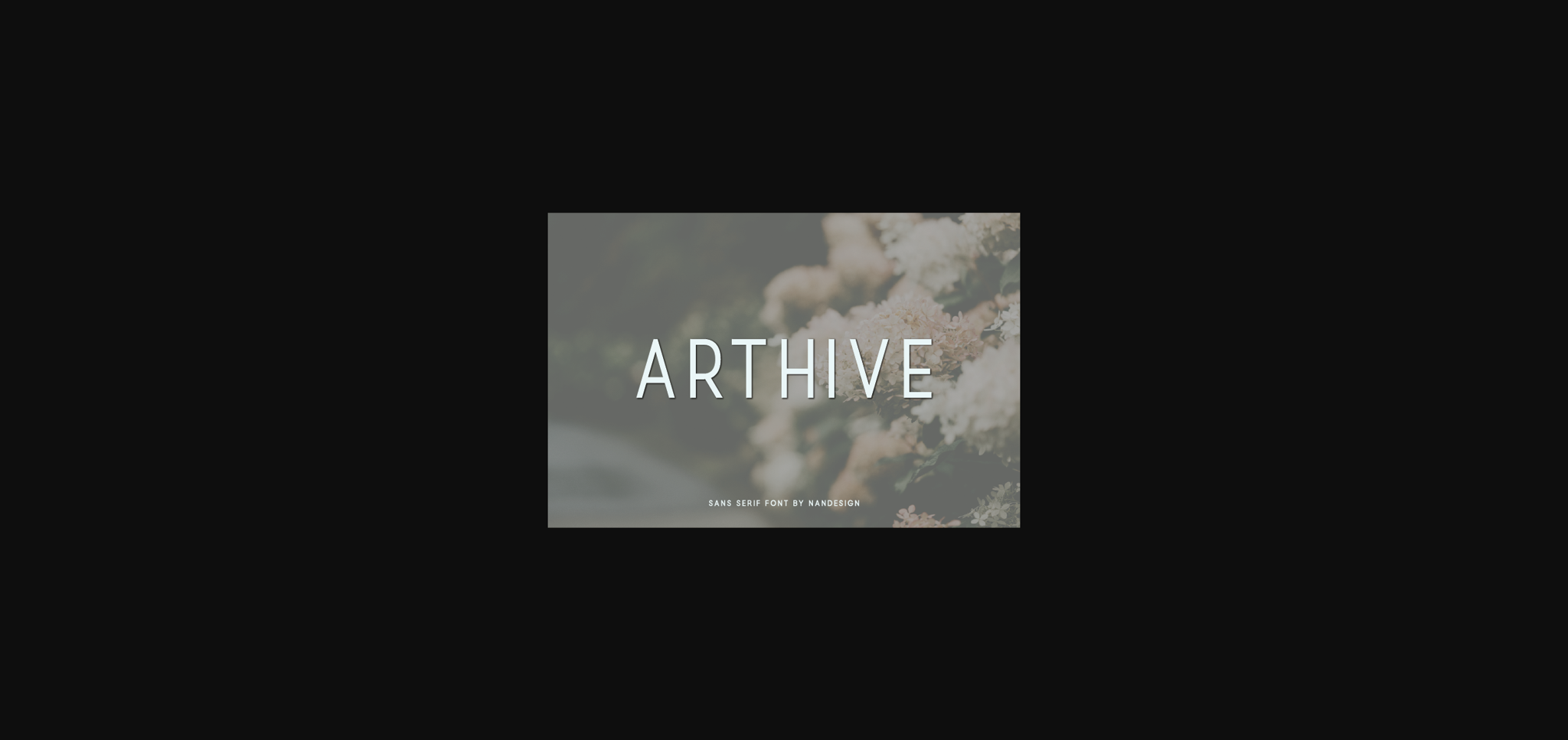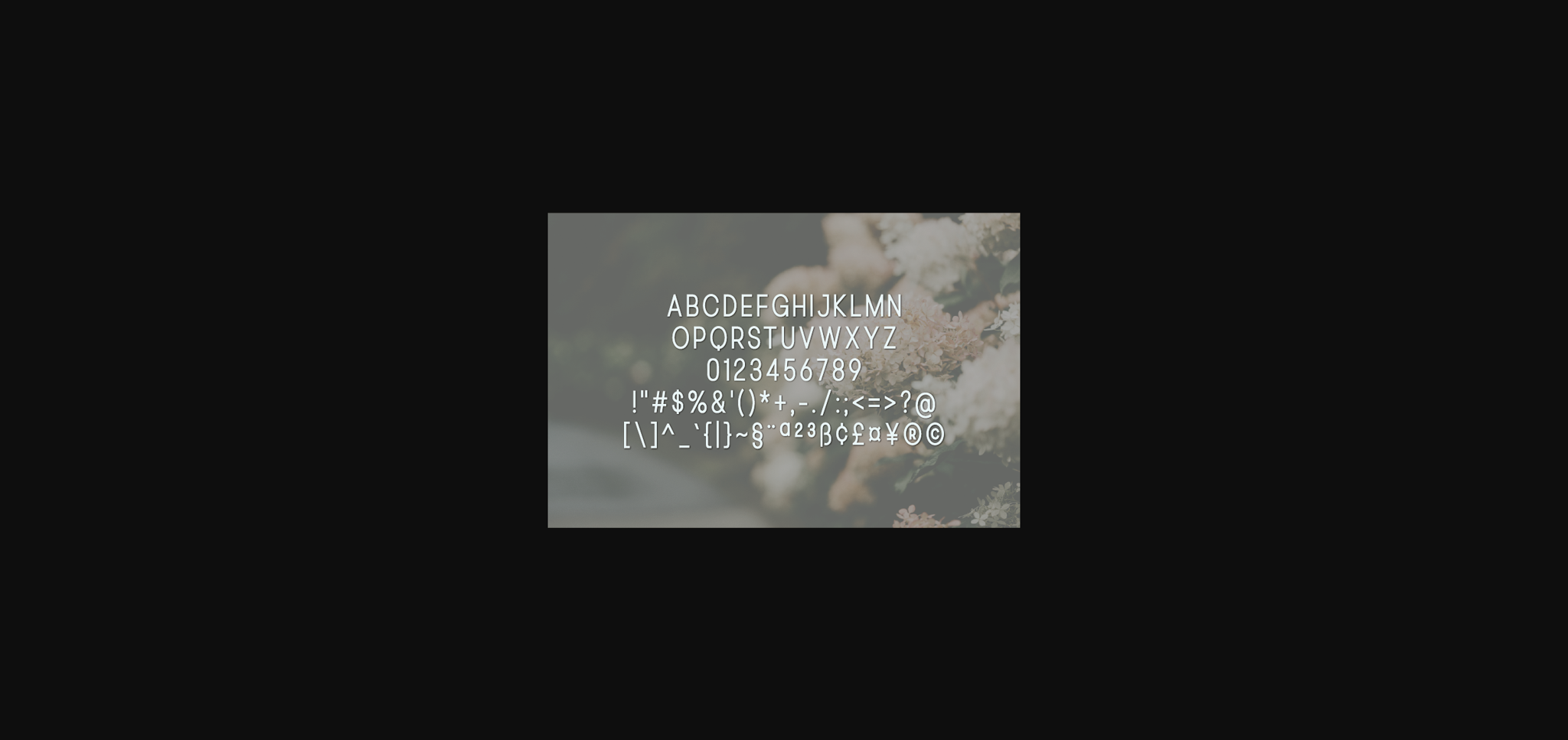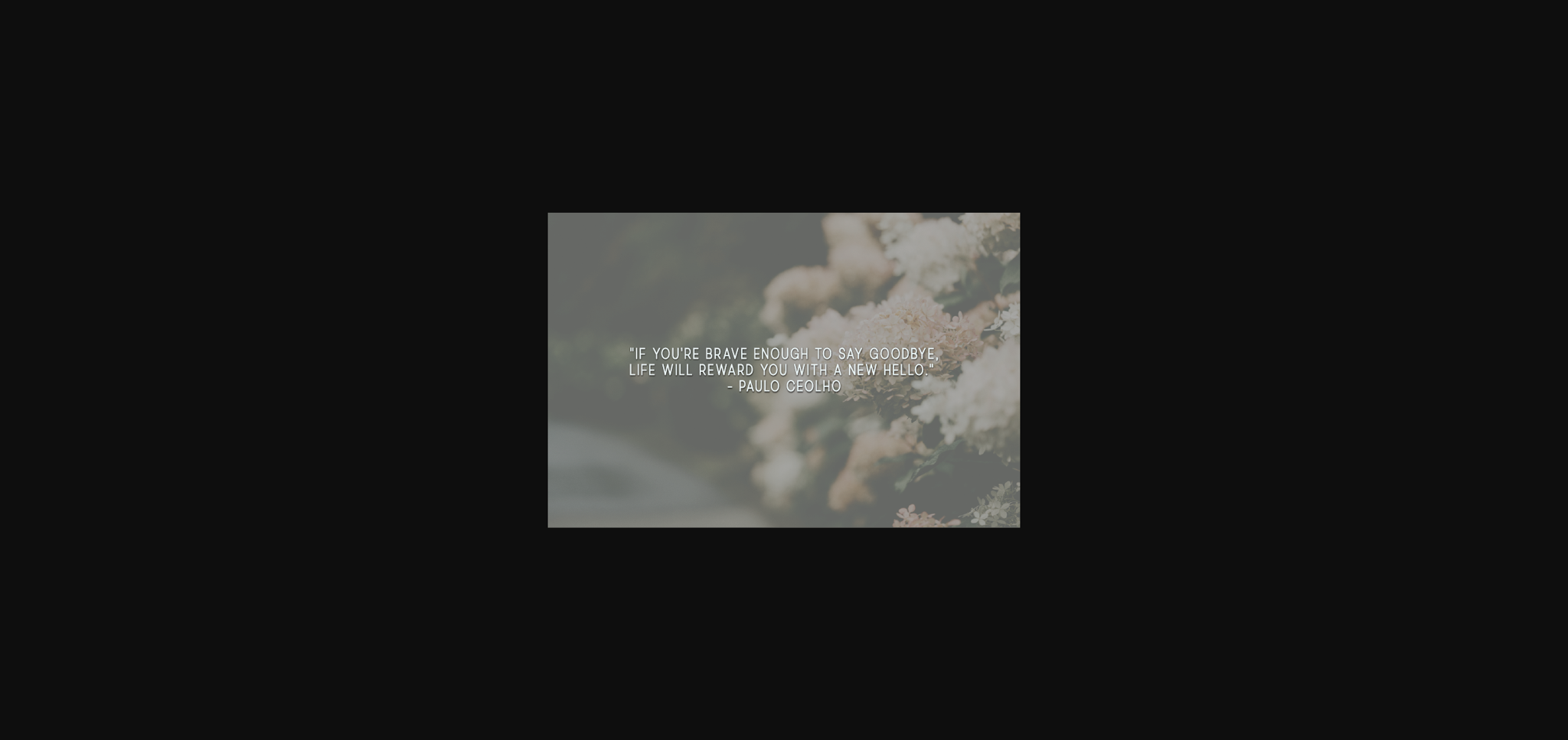
About Arthive Font
Arthive is a simple and adaptable sans serif font. It can easily be matched to an incredibly large set of projects, so add it to your creative ideas and notice how it makes them stand out!